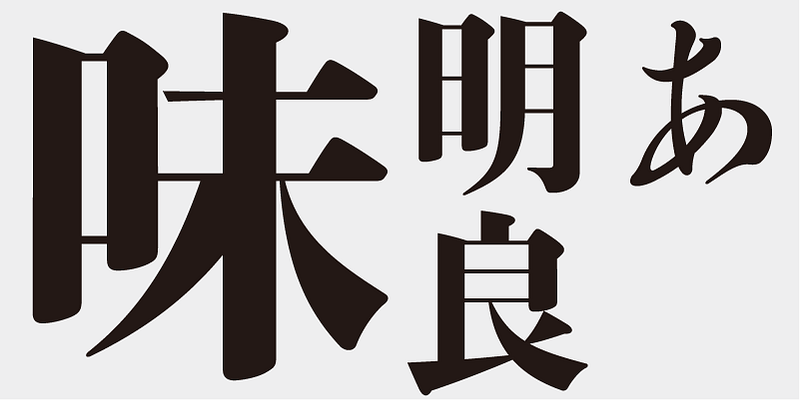
AB Ajimin Ryo/EB Font Free Download is a refined Japanese Mincho-style serif typeface that balances strong visual presence with classical elegance. The name “Ryo” (涼) means “cool” or “refreshing” in Japanese, suggesting a graceful and clear design aesthetic—while “EB” (Extra Bold) denotes its striking weight, perfect for display use, titles, and branding where both tradition and impact are essential.
AB Ajimin Ryo/EB Font Free Download features sharply defined serifs, vertical contrast, and a dignified structure typical of Mincho (明朝体) fonts. In its Extra Bold form, the font emphasizes contrast and legibility, making it especially effective in headlines, book covers, cultural product packaging, or signage that seeks to evoke a sense of timeless sophistication with bold clarity.
It supports a full range of Japanese scripts—including Hiragana, Katakana, Kanji—as well as basic Latin characters, making it well-suited for bilingual and globally conscious design projects.
Strong, elegant, and culturally rich—AB Ajimin Ryo/EB Font is an excellent choice for high-impact Japanese typography that blends classic style with modern refinement.